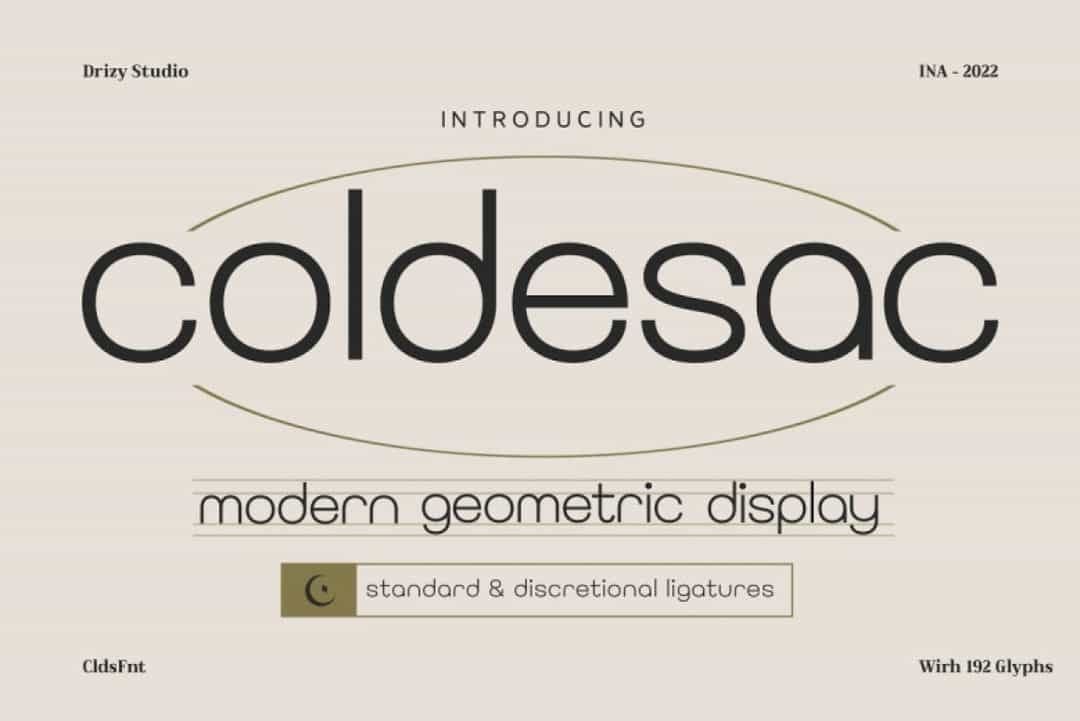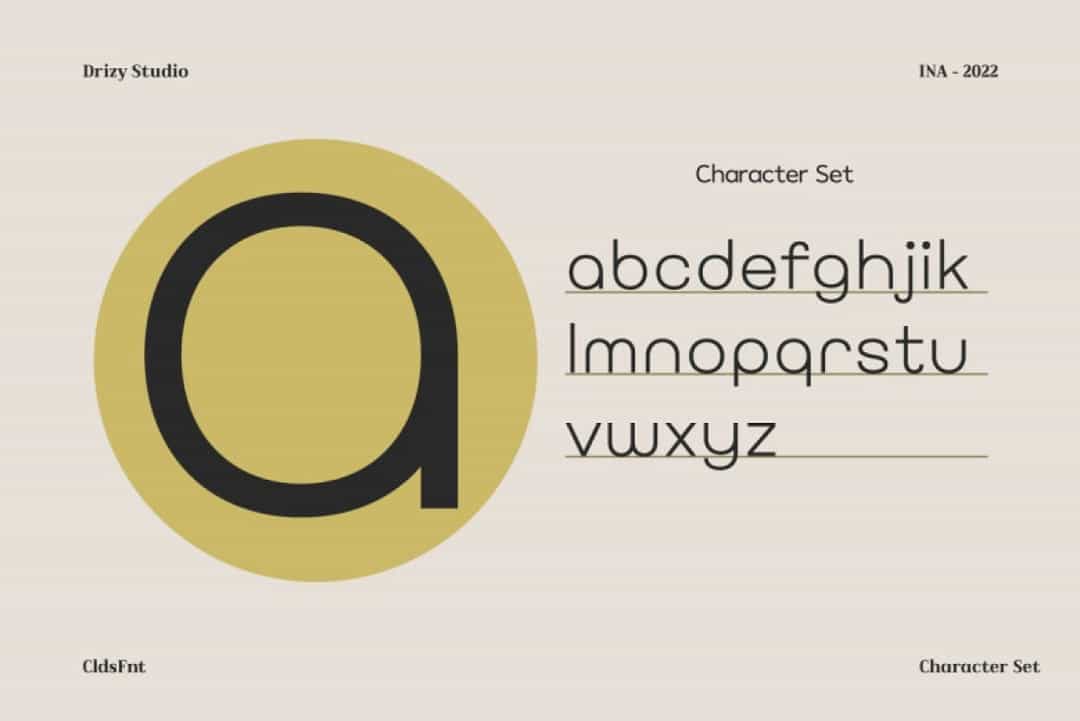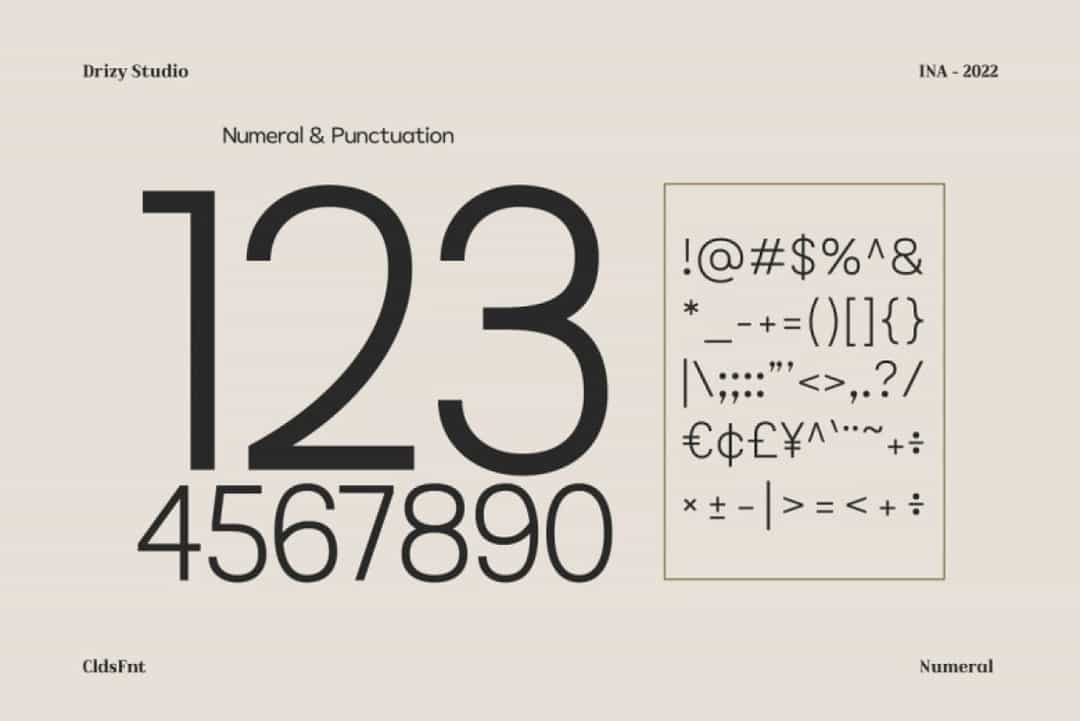
Coldesac by Drizy Studio is an amazing Modern Geometric Sans Serif Font, complete with all of the styles necessary to make it part of any creative project. Coldesac features lowercase letters only punctuation numbers multiple language support and Ligatures for easy project creation.